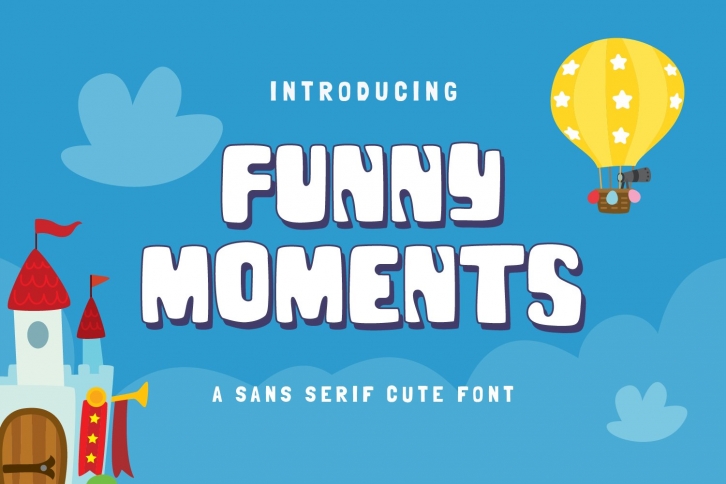
Funny Moments is a trendy and unique font with an authentic style. It was designed by MGOTCHAN and it's a great choice for creative people who need such a font. It was released on November 21, 2021 and the file size is 15.52 MB. Funny Moments will add an organic vibe to any design idea!